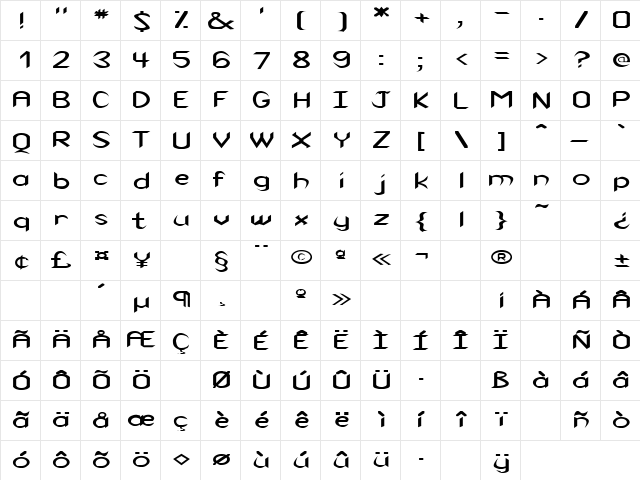
Nonfiction 4 Regular Font Preview
Nonfiction 4 Regular
Design Context for Nonfiction 4 Typeface
Nonfiction 4 takes a measured approach to typography — its balanced proportions and neutral character make it a reliable workhorse for both digital and print work.